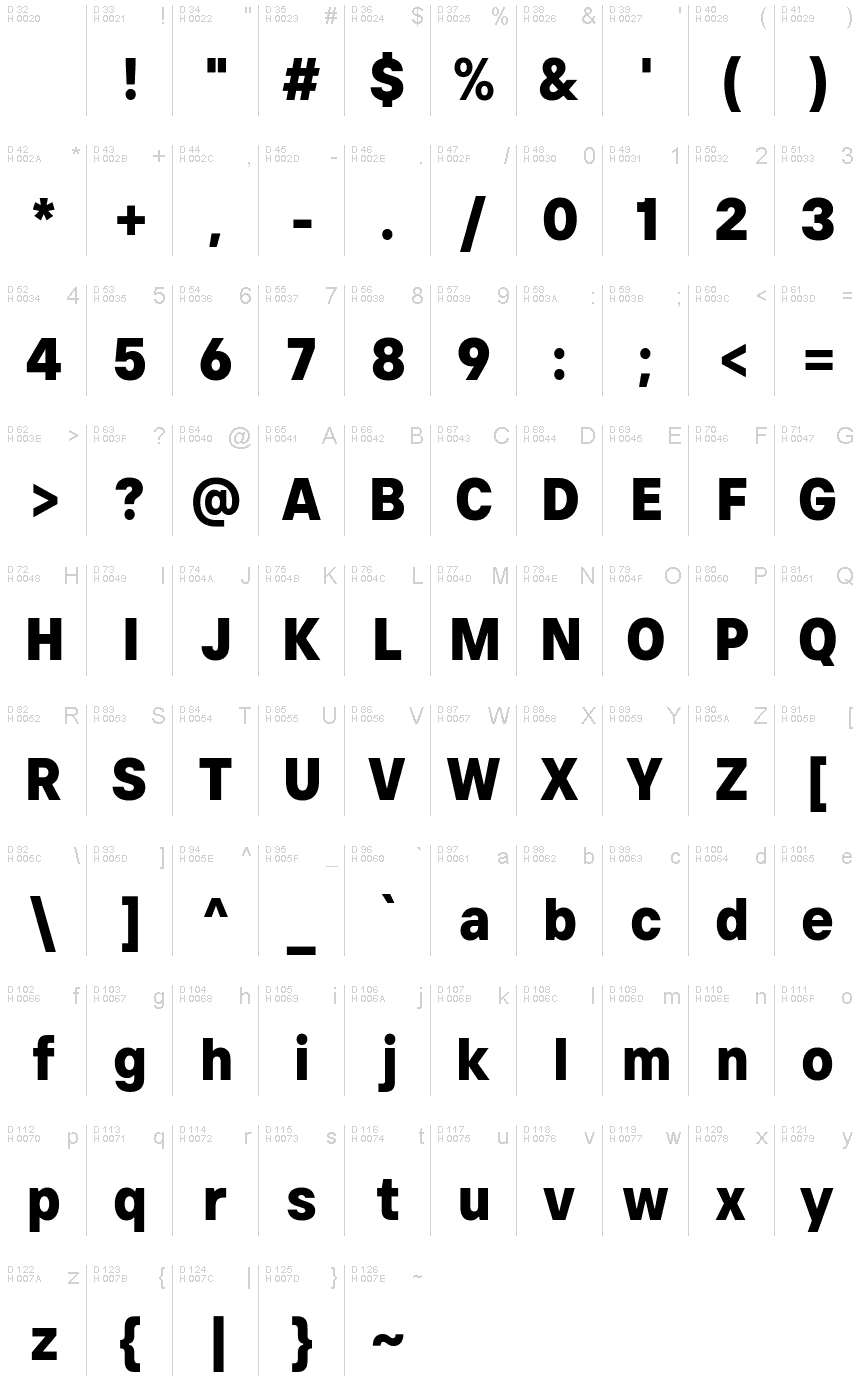
TT Interphases Pro Cnd Blc is an ultra-bold, condensed sans serif font from TypeType Foundry. This font exudes a sense of strength and modernity, making it perfect for a wide range of projects.
Its bold weight and condensed width are particularly suitable for creating impactful headlines and titles that demand attention. Whether you're designing posters, logos, or packaging, TT Interphases Pro Cnd Blc will add a touch of sophistication and uniqueness to your work.
With its strong presence and sleek design, this font is sure to make a lasting impression.